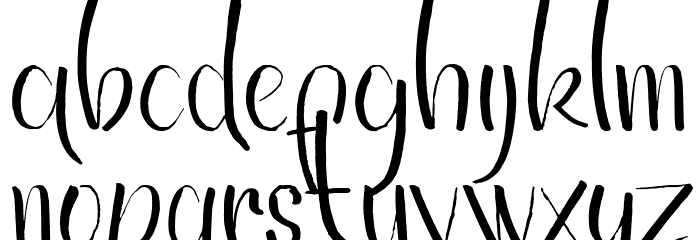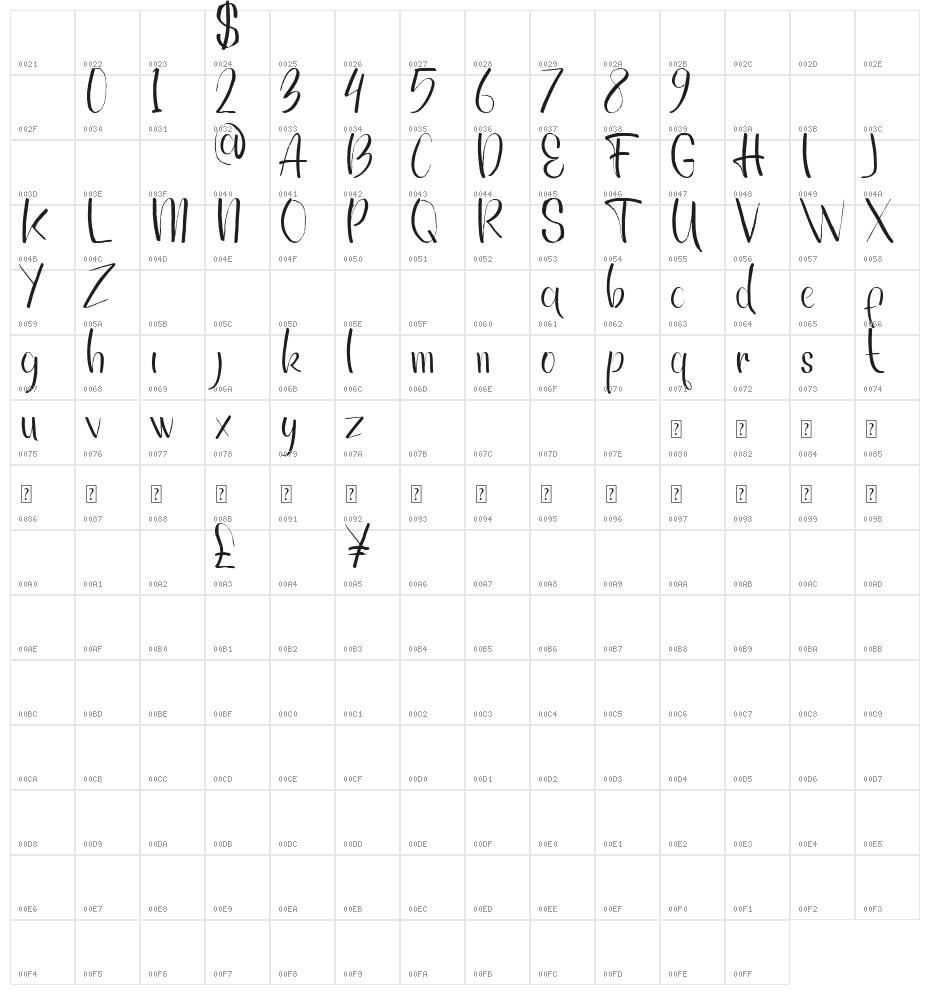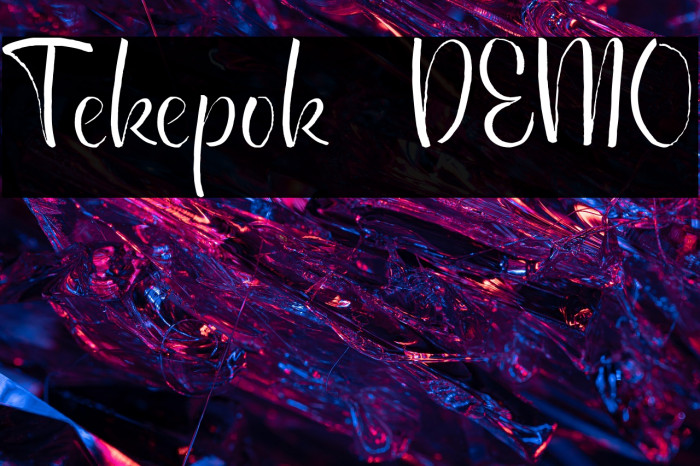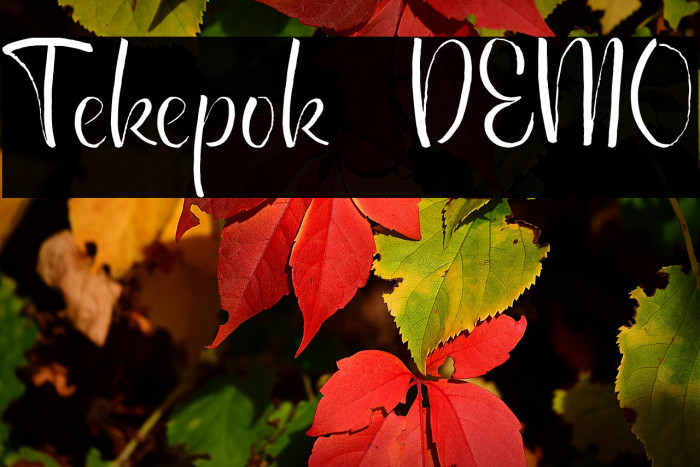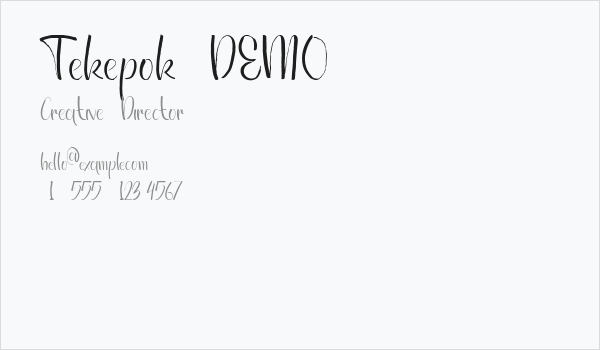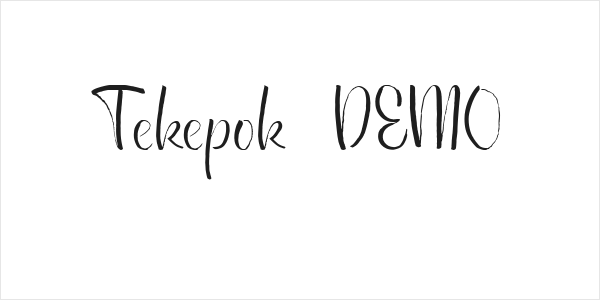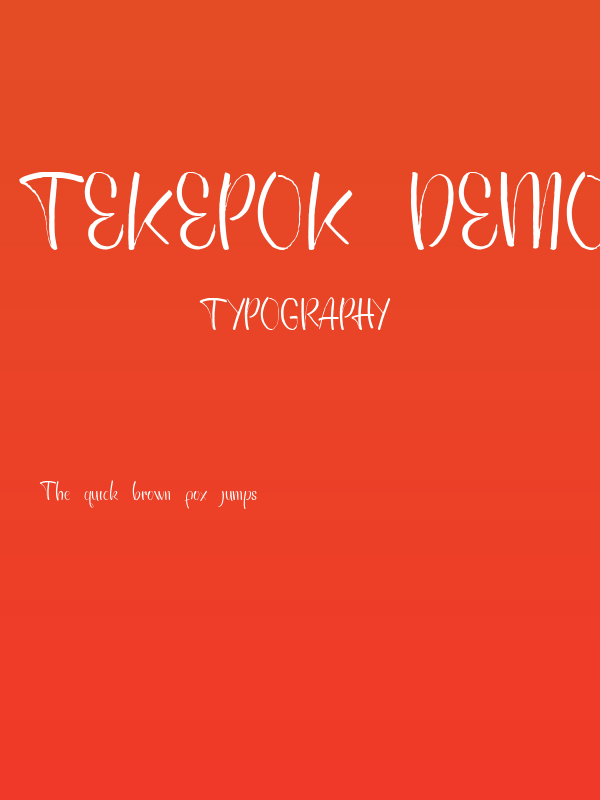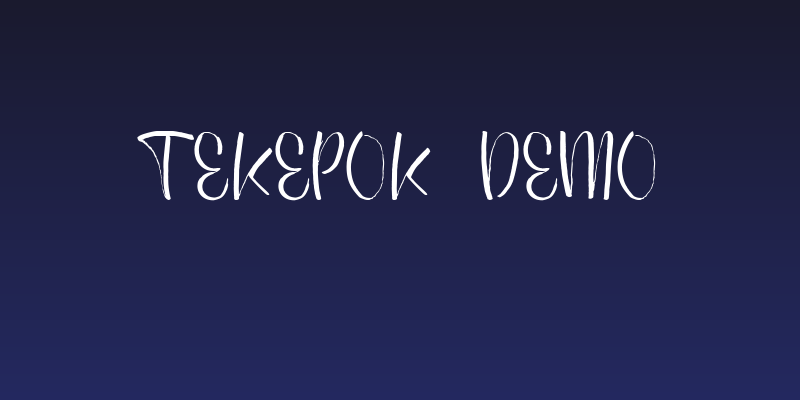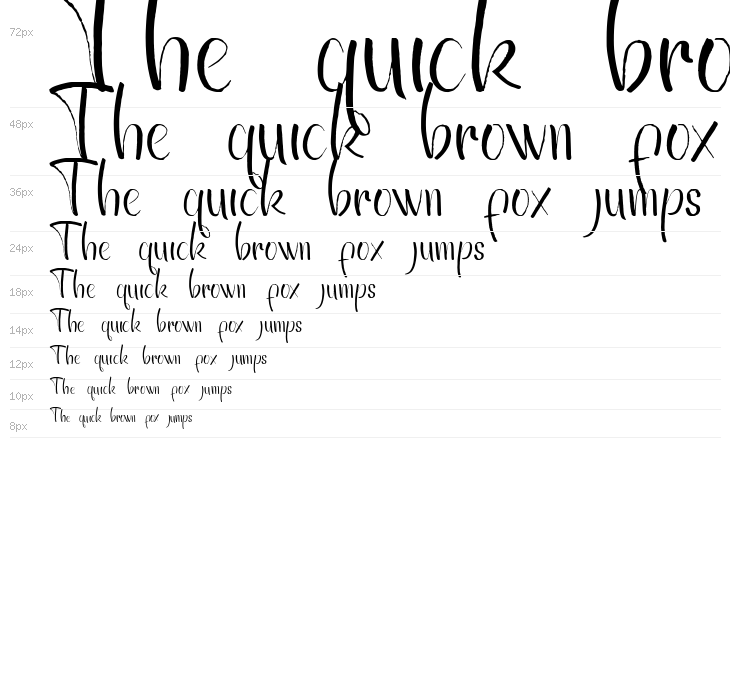
Tekepok DEMO Font
This font features a dynamic and expressive handwritten style, characterized by its fluid and organic strokes. The uppercase letters exhibit a playful yet elegant form, with varying stroke widths that add a sense of movement and energy. The lowercase letters maintain this lively aesthetic, with some characters displaying unique loops and curves that enhance the font's personality. The numbers and special characters are crafted with the same attention to detail, ensuring consistency across all glyphs. The overall appearance is both artistic and approachable, making it suitable for projects that require a personal touch.
A dynamic handwritten font with fluid strokes and playful elegance.
- Proposed Projects: Ideal for greeting cards, invitations, branding, and social media graphics.
- Use Case: Logos, Headlines, Invitations